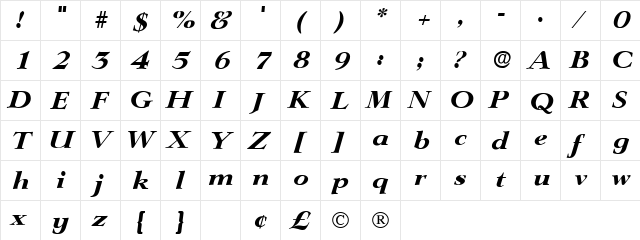
Terono Display SSi Italic Font Preview
Terono Display SSi Italic
Design Context for Terono Display SSi Typeface
Terono Display SSi brings ornamental detail and strong personality to headlines and identities, where visual impact matters more than quiet functionality. Its italic angle brings a sense of urgency and motion to the letterforms.
Font Pairing: Pair with a clean neutral sans-serif for body copy to let Terono Display SSi's character lead without overwhelming the composition.
Pro Tip: Use Terono Display SSi exclusively at display sizes — it was designed to be seen, not read at length. Let a neutral companion handle body copy.